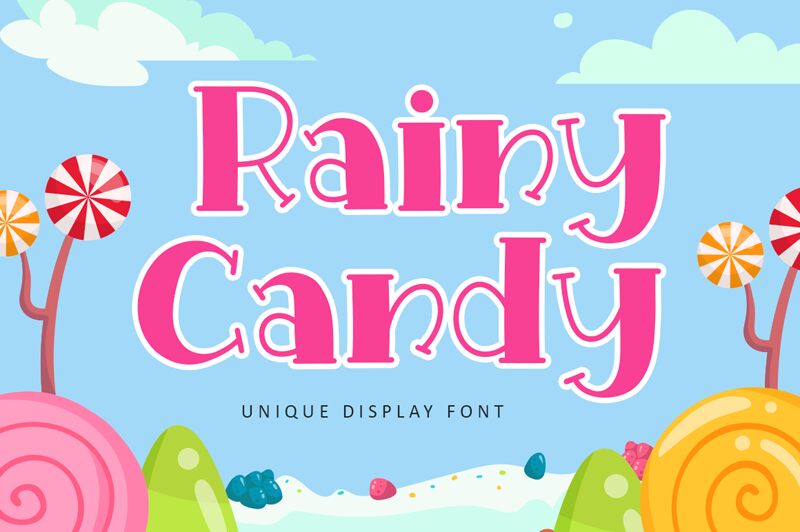
Rainy Candy font by Illushvara is a vibrant display typeface that brings a playful cartoon style to your design projects. With its bold weight, this free font captures attention and adds a whimsical touch to any creative endeavor. The rounded, dynamic letterforms evoke a sense of fun and imagination, making it perfect for children's books, party invitations, and playful branding.
Download Rainy Candy font to add a splash of character and charm. Its unique style effortlessly enhances digital content with a joyful vibe that's both engaging and visually appealing. Ideal for projects that require a free display font with personality, Rainy Candy delivers delightful aesthetics in every use case.